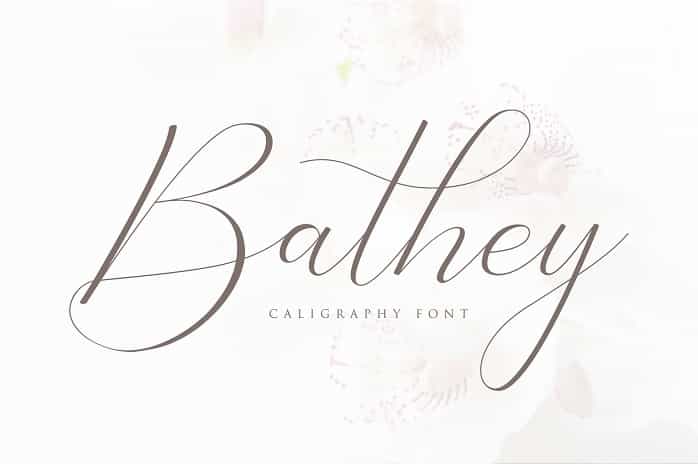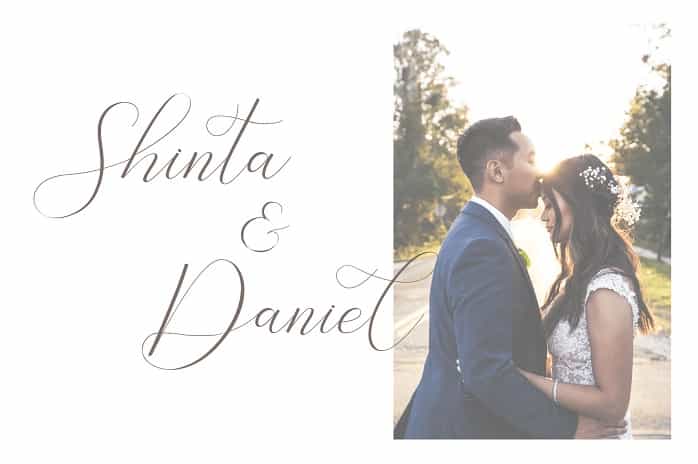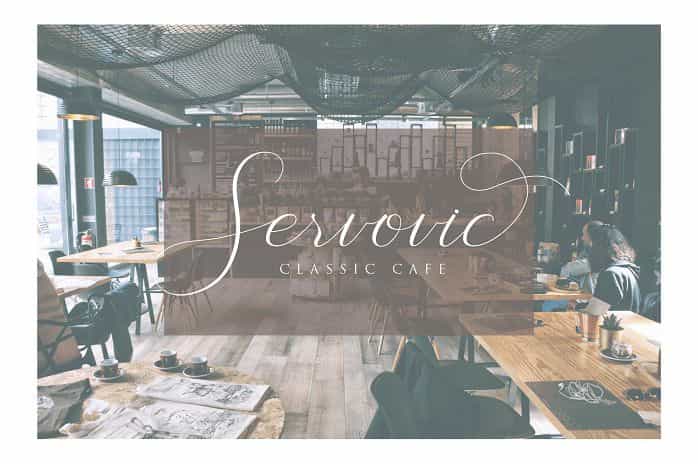
Discover Bathey Calligraphy Font, part of the Calligraphy collection—a versatile and unique font perfect for adding a personal touch to your projects. Download it for free and enjoy crafting designs with style, from invitations to social media posts. This font is available exclusively for personal use, giving you the freedom to create without limits. Unlock your creativity with Bathey Calligraphy Font today!
Introducing Bathey Font. Bathey has designed it and shared by End co. Samantha Signature is a signature font that can be used to make logos, posters, magazines, books titles, business cards, fashion designs etc.